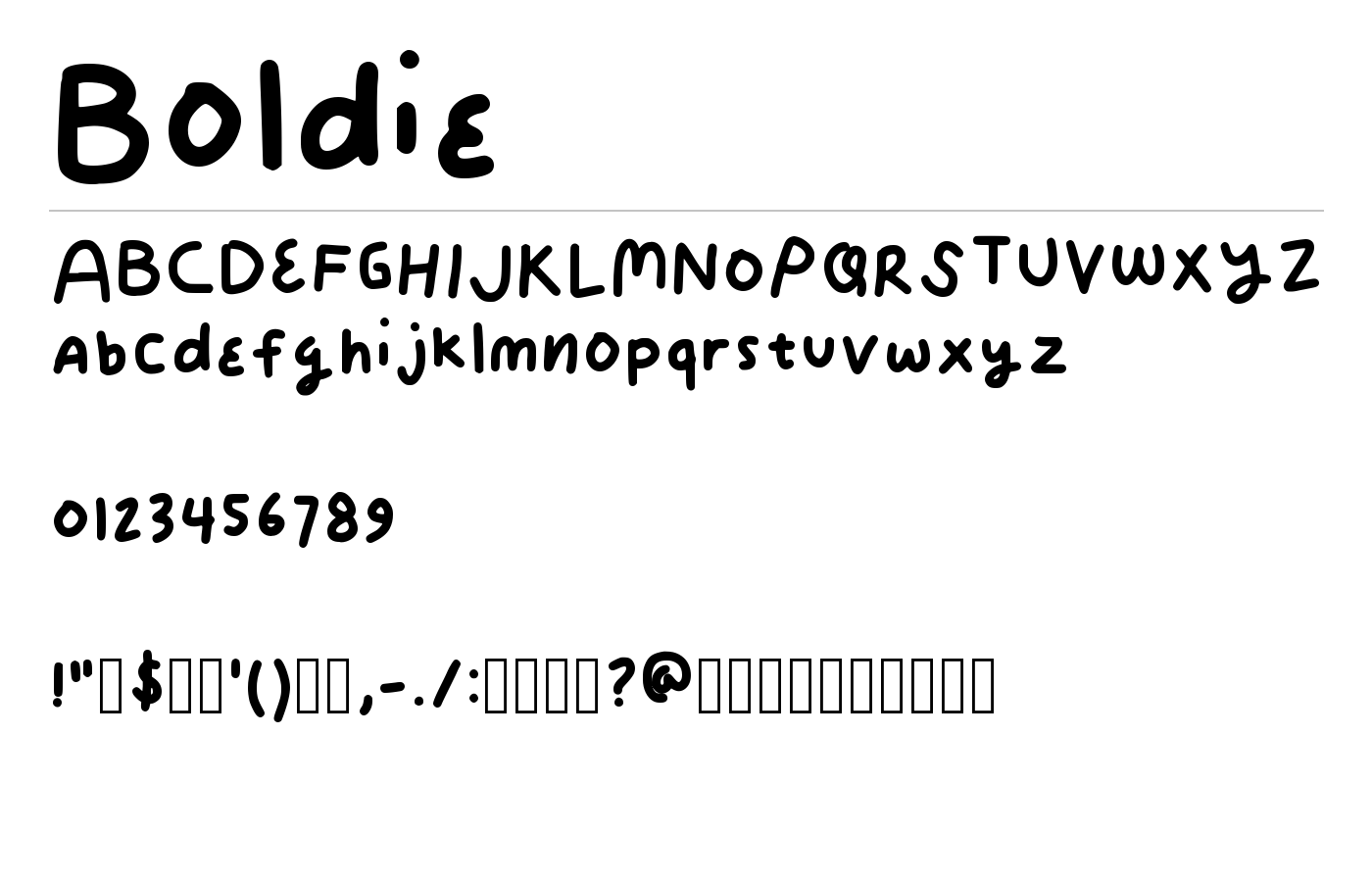
Boldie is a playful, rounded sans serif font with a friendly, handwritten feel. Its uneven stroke widths and casual letterforms make it perfect for informal designs, children's projects, and creative branding that seeks a warm, approachable vibe. This font works best in headlines, logos, and packaging where a fun and distinctive personality is desired.
Boldie Font
About Boldie Font